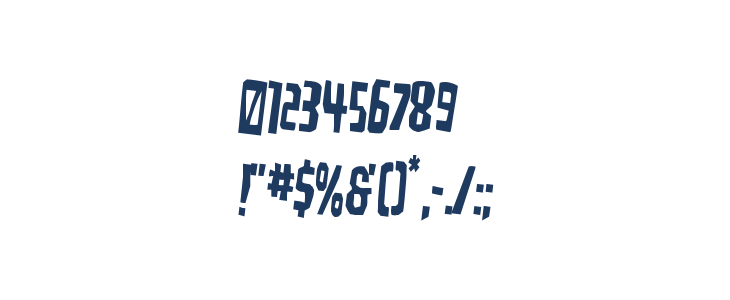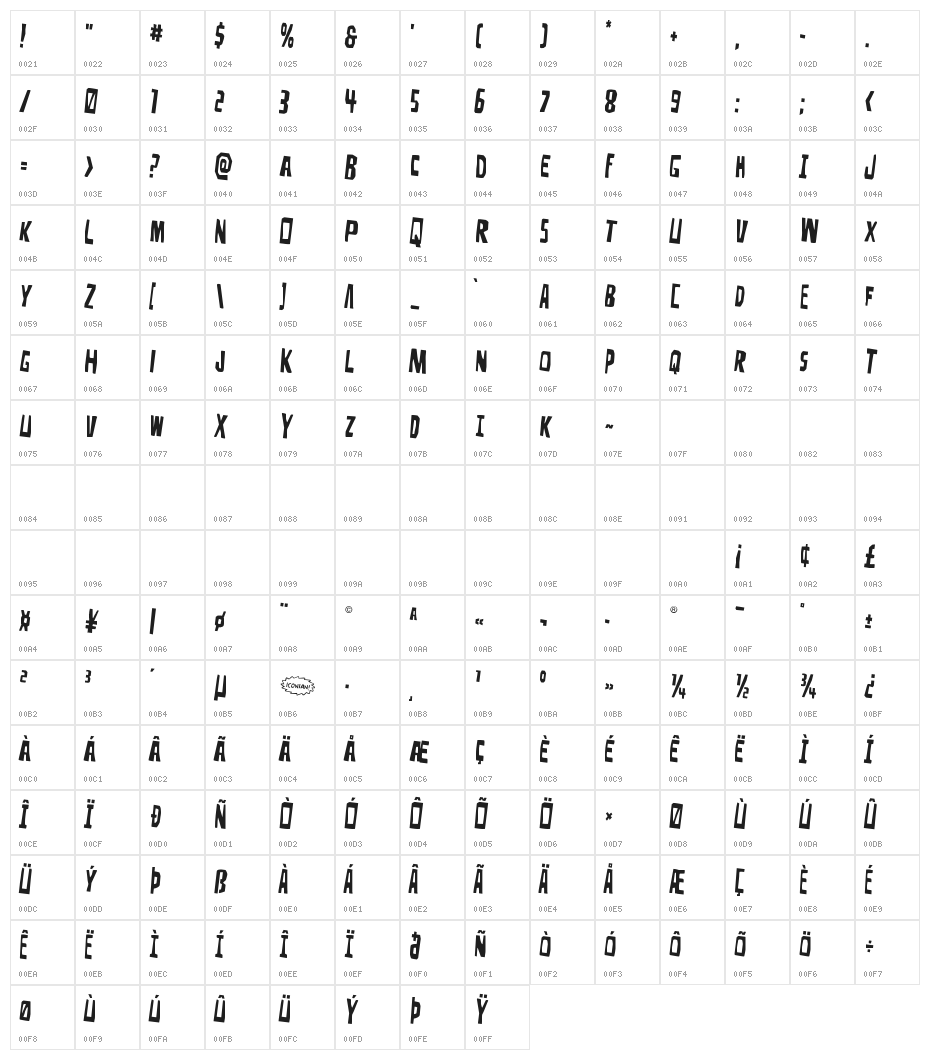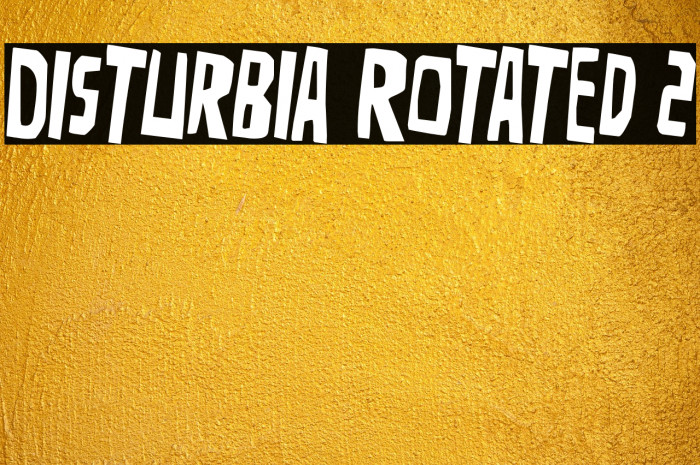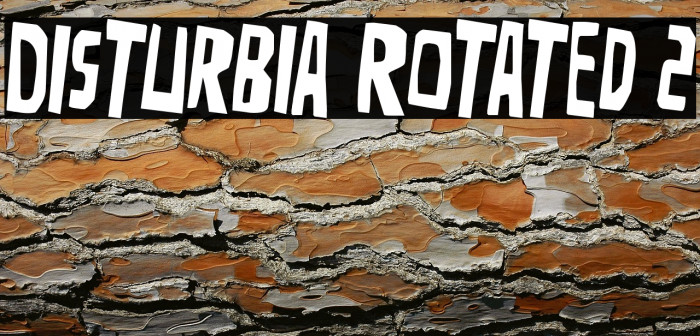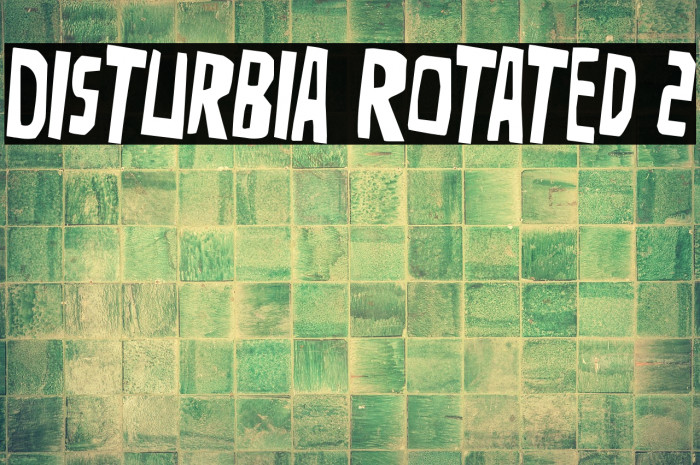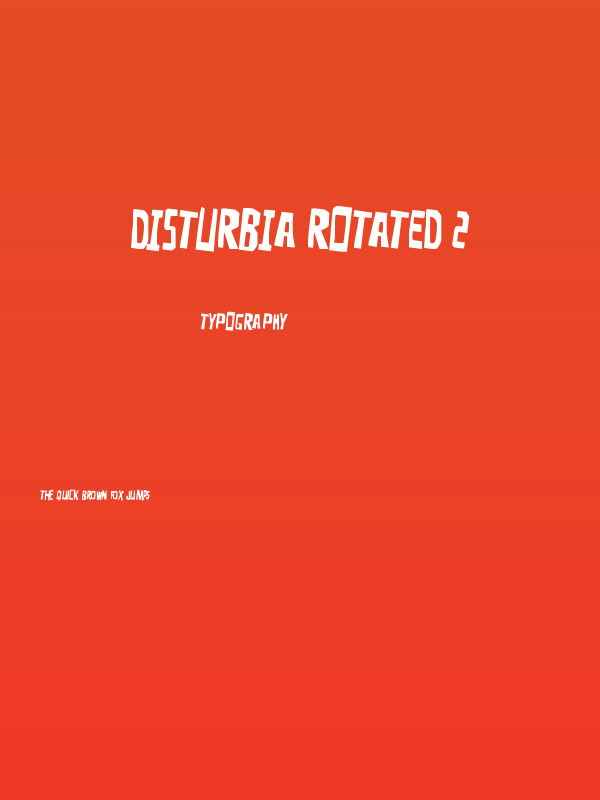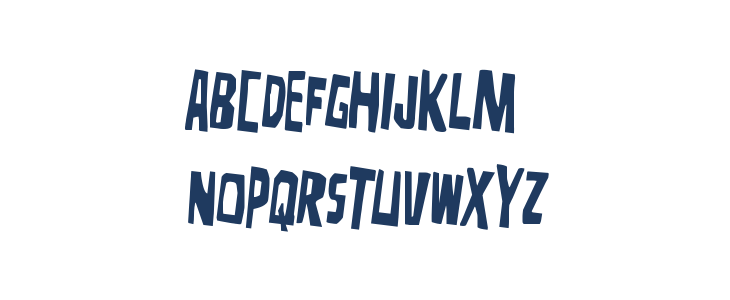
Disturbia Rotated 2 Font
Disturbia Rotated 2 Description
This font features a bold and dynamic style with a slightly distorted and irregular appearance, giving it a unique and edgy look. The characters are thick and robust, with varying angles and a sense of movement that suggests a playful yet rebellious attitude. The uppercase and lowercase letters maintain a consistent style, while the numbers and special characters complement the overall design. This font's distinctive personality makes it stand out, ideal for projects that require a strong visual impact.
Overall StyleModern, Edgy
Use CaseHeadlines, Posters, Branding
Proposed ProjectsIdeal for music album covers, event posters, urban-themed designs, and branding that requires a bold statement.